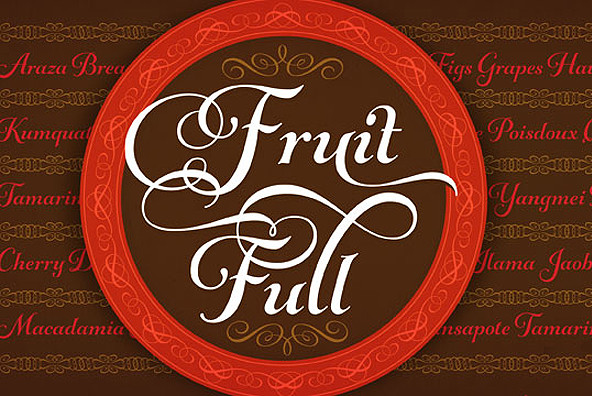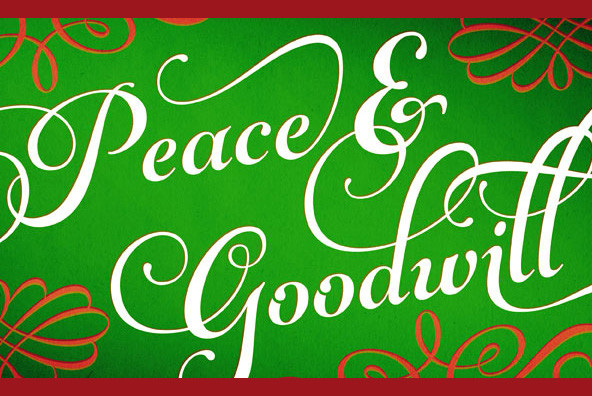
Gioviale Gioviale
Graphic designers with a lust for lettering are constantly seeking scripts balanced neatly on the sweet spot suited for exuberant editorial work and messages of cheer. Neither frivolous nor strict. My typeface, Gioviale, satisfies that need.
Your work may call for a script that is handsome without being overly formal, that is merry, playful, and, like a good Italian pastry dough, hasn't been overly handled until it is left stiff and flat. Use Gioviale to create something tasty, al dente, a touch ornate yet fluent and full of life. Its versatility is exemplified in its greater readability at small sizes compared to other scripts, as well as the included alternates and swashes.
Scripts with a hand-lettered look often take on one of two personalities. Some are formal, with heavy flourishes that threaten to sacrifice readability. They are regal, make a statement, yet are so meticulously constructed that they seem chiseled in stone and inflexible. But, oh how exquisitely beautiful they can be.
What's the usual alternative? Italic text faces. Though modern and readable, with the little twist that italics carry, they can have a manufactured appearance, a mass-market profile that robs your work of the personable quirkiness of the handmade and unique. But, still, they cast a respectable, clean, and professional profile.
What inhabits the space between these, an uncompromising tool that, in your hands, conveys conviviality, grace, and spunk?
Gioviale glides in to fill that formerly scanty typographical niche, a hybrid of an italic text face and a script, flowing with flair and elegance, and, somehow, carrying just a hint of tailored and clean, structured underpinnings. It reveals that elegance needn't be serious, just the result of serious craftsmanship.
Indeed, Gioviale was inspired by a simple and spontaneous burst of joy in my own craft. Conceptually, my process was reflected precisely in the outcome, perhaps because it mirrors my own personality in so many ways. Despite the due diligence required, this typeface came more easily and naturally to me than virtually any other I've created. The heart of it burst onto the page breathtakingly fast compared to my other typefaces.
I wanted the look of a roman italic without pausing to build a roman counterpart (perhaps I'll design one in the future). I looked to the Italian Didones, popularized by Didot and known for their very high contrast thin thins and thick thicks. True to its nature, Gioviale is a less serious interpretation of the Didones, and its uppercase letters are a departure from classic precursors.
Gioviale includes a User's Guide, 1008 glyphs, an entire alternate set of swash caps, 20 ornaments, 20 discretionary ligatures, and an unusually high number of swashes (300), which include a standard uppercase set for more traditional text settings, and a swash uppercase set which are even more flourished. Why not? To joy!